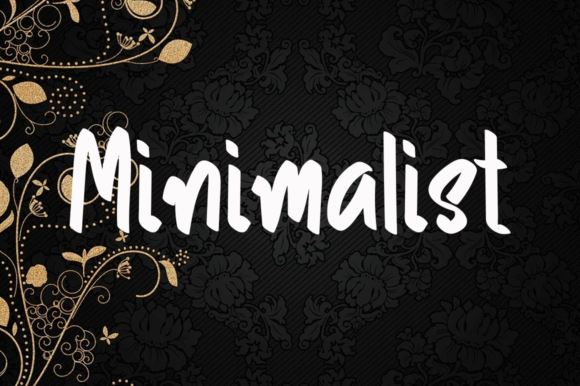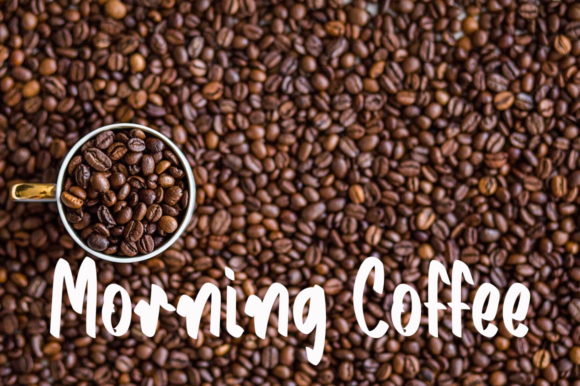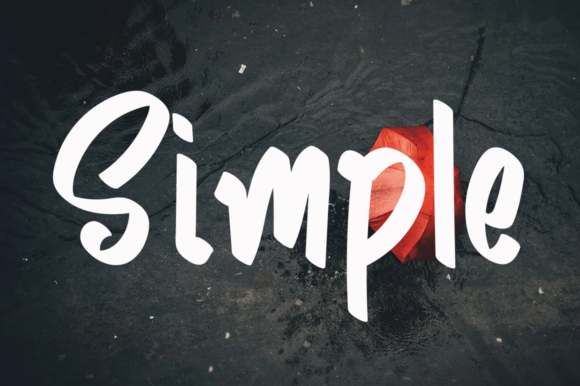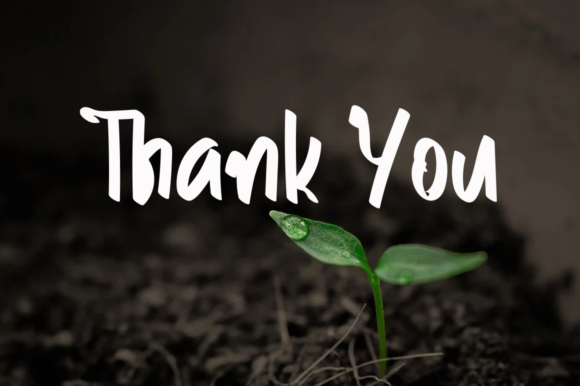
Introducing Delay Font: The Perfect Addition to Your Design Arsenal
Are you tired of using the same old fonts in your designs? Look no further! Delay Font is a beautiful, cursive handwritten font that is sure to add a touch of elegance and whimsy to any project. In this article, we’ll take a closer look at Delay Font, its features, and how you can use it to take your designs to the next level.
What is Delay Font?
Delay Font is a dainty, original, and cursive handwritten font that is perfect for designers and crafters looking for a unique and romantic touch. This soft font is designed to be versatile and can be used on a wide range of design ideas, from wedding invitations and social media graphics to blog posts and product labels.
Key Features of Delay Font
- Handwritten with love: Delay Font is a carefully crafted, handwritten font that exudes a sense of warmth and personality.
- Cursive and elegant: The cursive style of Delay Font adds a touch of sophistication and elegance to any design.
- Dainty and original: Delay Font is a one-of-a-kind font that is sure to make your designs stand out from the crowd.
- Romantic and whimsical: This font is perfect for designers who want to add a touch of romance and whimsy to their designs.
How to Use Delay Font in Your Designs
Delay Font is incredibly versatile and can be used in a wide range of design projects. Here are a few ideas to get you started:
- Wedding invitations and stationery: Delay Font is perfect for wedding invitations, save-the-date cards, and other wedding stationery.
- Social media graphics: Use Delay Font to create eye-catching social media graphics, such as Instagram posts and Facebook covers.
- Blog posts and articles: Add a touch of elegance to your blog posts and articles with Delay Font.
- Product labels and packaging: Use Delay Font to create beautiful and eye-catching product labels and packaging.
Tips for Pairing Delay Font with Other Fonts
Delay Font can be paired with a wide range of fonts to create a unique and visually appealing design. Here are a few tips for pairing Delay Font with other fonts:
- Pair with a sans-serif font: Pair Delay Font with a sans-serif font, such as Arial or Helvetica, for a clean and modern look.
- Pair with a script font: Pair Delay Font with another script font for a elegant and sophisticated look.
- Experiment with font sizes: Experiment with different font sizes to create visual interest and hierarchy in your design.
Delay Font is a beautiful and versatile font that is perfect for designers and crafters looking for a unique and romantic touch. With its cursive style, dainty and original design, and whimsical feel, Delay Font is sure to add a touch of elegance and sophistication to any design project. Whether you’re designing wedding invitations, social media graphics, or product labels, Delay Font is the perfect addition to your design arsenal.